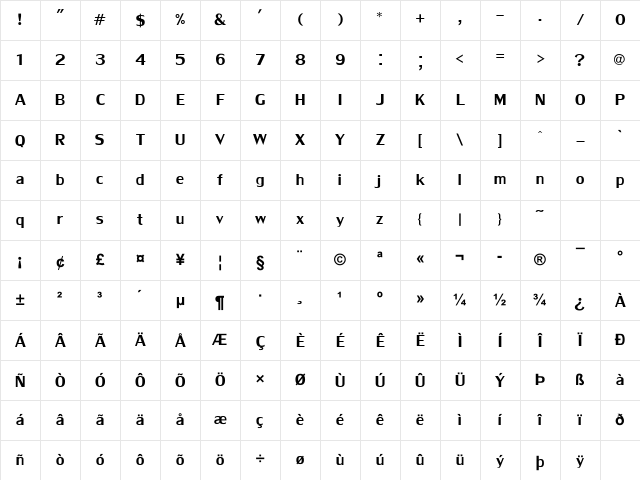
LilyUPC Normal
Complete LilyUPC Normal glyph index. Displaying only characters natively supported by LilyUPC Normal font.
Design Context for LilyUPC
LilyUPC is a composed and adaptable typeface that performs quietly and consistently across a wide range of design contexts.